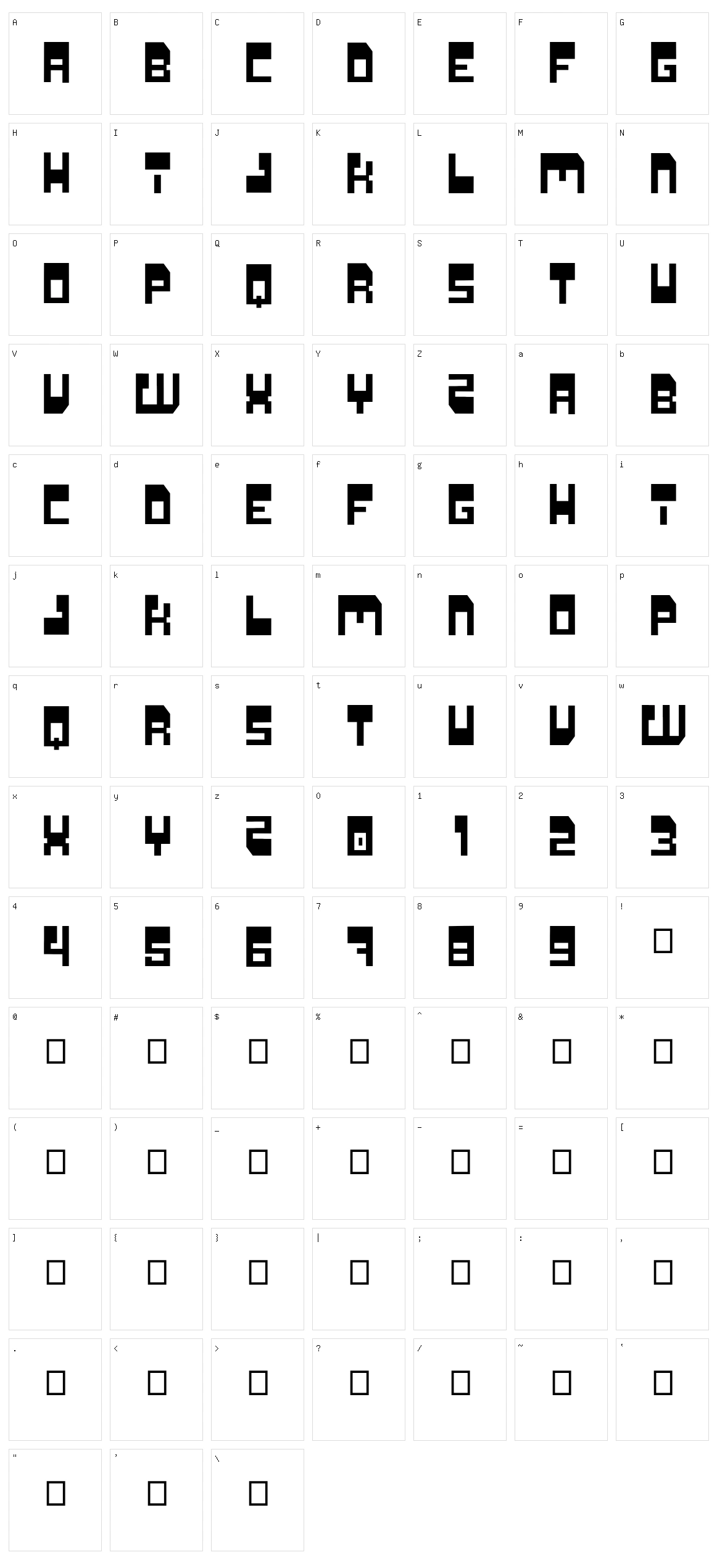
The free font Galaxia is carefully designed by Grafito Design, showcasing a thoughtful balance of creativity and usability and falls under the Square font style. When you download the ZIP file, it contains only 3.73 KB of font files, making it lightweight and quick to download. Please review the license details below to understand permitted usage and distribution rights. If license information is not available, we recommend using this font for personal projects only or contacting the author directly for commercial usage permissions.